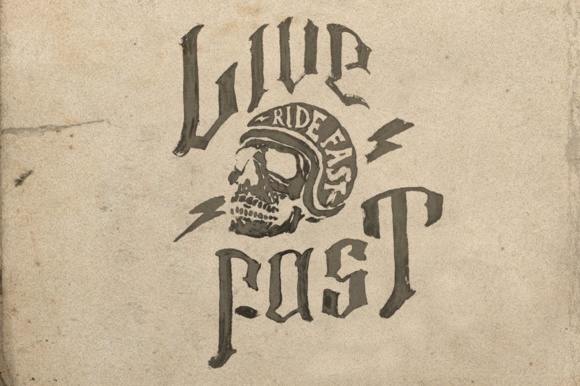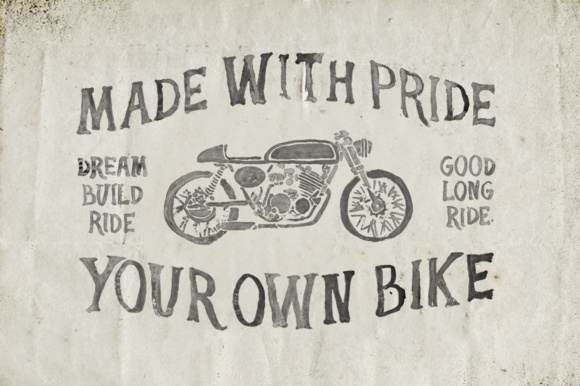
Introduction to Road Culture Font
You know that feeling when you stumble upon a design resource that just sparks your creativity? It’s like the whole world opens up to endless possibilities. For me, that moment happened when I discovered the Road Culture Font – a stunning, handmade typeface with a blackletter style that screams ‘biker chic’. This unique font is not just a pretty face; it’s a testament to the power of creative collaboration and the beauty of design.
The Road Culture Font is more than just a font – it’s a high-quality design resource that will elevate any creative project to the next level. With its transparent background and bold, edgy lines, it’s perfect for designers looking to add a touch of rebellion to their work. And the best part? It comes with a beautiful poster as a bonus file, making it an absolute steal for free download.
- High-quality design resource ideal for creative projects, offering a unique and stylish look.
- Includes a wide range of characters, including uppercase and lowercase letters, numbers, and special symbols.
- Perfect for use in logo design, typography, and other creative projects that require a modern and edgy look.
Honest Review: Road Culture Font
I recently stumbled upon the Road Culture Font and I must say, it’s a great addition to any designer’s toolkit. As a design resource, this font offers high quality, clean lines and a unique aesthetic that’s perfect for creative projects.
One of the standout features of the Road Culture Font is its versatility. It works well for a variety of designs, from logos and branding materials to digital products and even editorial content. The font’s transparent background makes it easy to layer and manipulate, allowing for endless creative possibilities.
Here are some of the things that work well with the Road Culture Font:
- ✨ Unique and modern design aesthetic
- ✨ High quality, clear lines and characters
- ✨ Transparent background for easy layering
- ✨ Great for creative projects and design resources
- ⚠️ Limited font styles and variations
- ⚠️ May not be suitable for complex or technical content
Overall, I’m impressed with the Road Culture Font and would recommend it to designers looking for a high-quality, modern font for their creative projects. Plus, it’s free to download, making it a valuable resource for any design team or individual.
Tips for Getting the Most Out of Road Culture Font
To get the most out of the Road Culture Font, use it in conjunction with a transparent background to create a clean and modern design. Experiment with different font sizes, colors, and styles to create visual interest and emphasis.